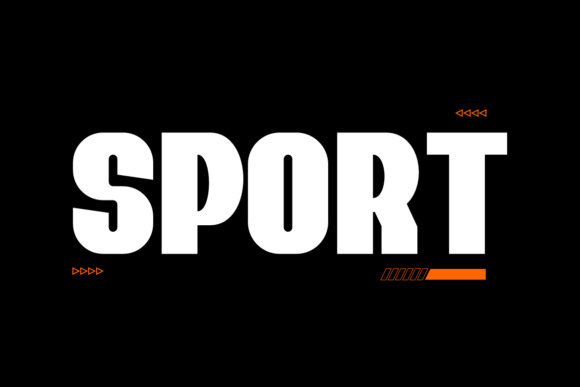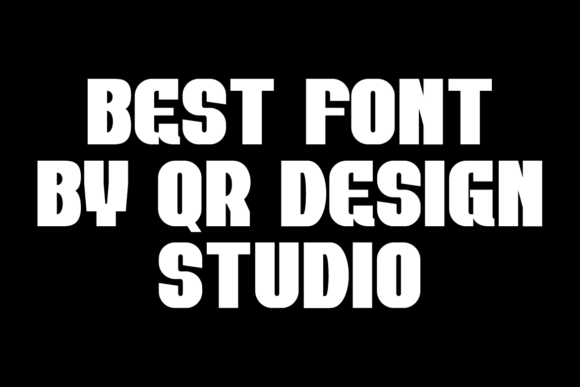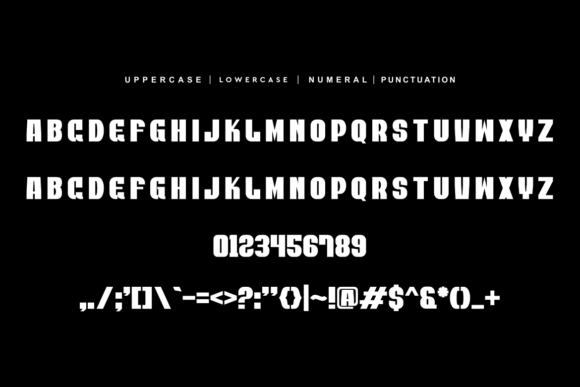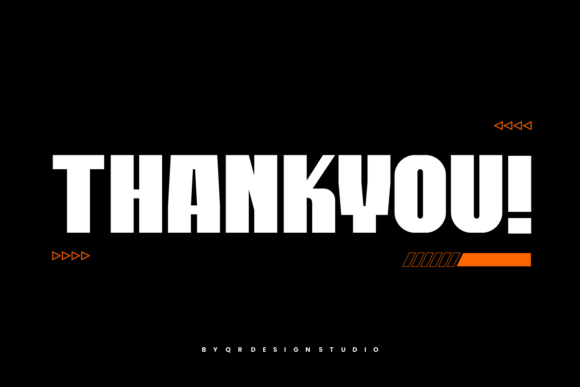
Ekomic Giwoke Font: Elevate Your Designs with a Bold and Assertive Sans Serif Font
In the world of typography, fonts play a crucial role in conveying messages, expressing emotions, and creating visual identities. For designers and crafters, finding the right font can make all the difference in bringing their creations to life. This is where Ekomic Giwoke comes in – a bold and assertive sans serif font that is poised to revolutionize your font library.
The Power of Ekomic Giwoke
Ekomic Giwoke is a game-changing font that can elevate any design, regardless of the topic or theme. Its bold and assertive personality makes it perfect for headlines, titles, and statements that demand attention. With Ekomic Giwoke, you can add a touch of confidence and sophistication to your creations, making them stand out in a crowded design landscape.
Key Features of Ekomic Giwoke
• Bold and Assertive: Ekomic Giwoke is designed to make a statement. Its bold and assertive personality makes it perfect for designs that require a strong visual impact.
• Sans Serif: The font’s sans serif design ensures that your text is clear, clean, and easy to read, making it perfect for digital and print applications.
• Versatile: Ekomic Giwoke can be used for a wide range of design applications, from branding and advertising to packaging and editorial design.
• Highly Legible: The font’s carefully crafted letterforms ensure that your text is highly legible, even at small sizes.
Why Choose Ekomic Giwoke?
With so many fonts available, why choose Ekomic Giwoke? Here are just a few reasons why this font stands out:
• Unique Personality: Ekomic Giwoke has a unique personality that sets it apart from other fonts. Its bold and assertive design ensures that your creations will stand out.
• Easy to Use: The font is easy to use and pairs well with a wide range of other fonts, making it perfect for designers of all skill levels.
• High-Quality: Ekomic Giwoke is a high-quality font that is designed to deliver exceptional results in a variety of design applications.
Design Applications for Ekomic Giwoke
Ekomic Giwoke is a versatile font that can be used in a wide range of design applications, including:
• Branding and Advertising: Use Ekomic Giwoke to create bold and attention-grabbing headlines, titles, and taglines.
• Packaging Design: Add a touch of sophistication and elegance to your packaging designs with Ekomic Giwoke.
• Editorial Design: Use Ekomic Giwoke to create visually stunning editorial designs, including magazines, newspapers, and books.
• Digital Design: Ekomic Giwoke is perfect for digital applications, including websites, social media graphics, and mobile apps.
In conclusion, Ekomic Giwoke is a bold and assertive sans serif font that is poised to revolutionize your font library. With its unique personality, versatility, and high-quality design, Ekomic Giwoke is the perfect choice for designers and crafters looking to elevate their creations. Whether you’re working on a branding project, packaging design, or editorial design, Ekomic Giwoke is sure to deliver exceptional results.